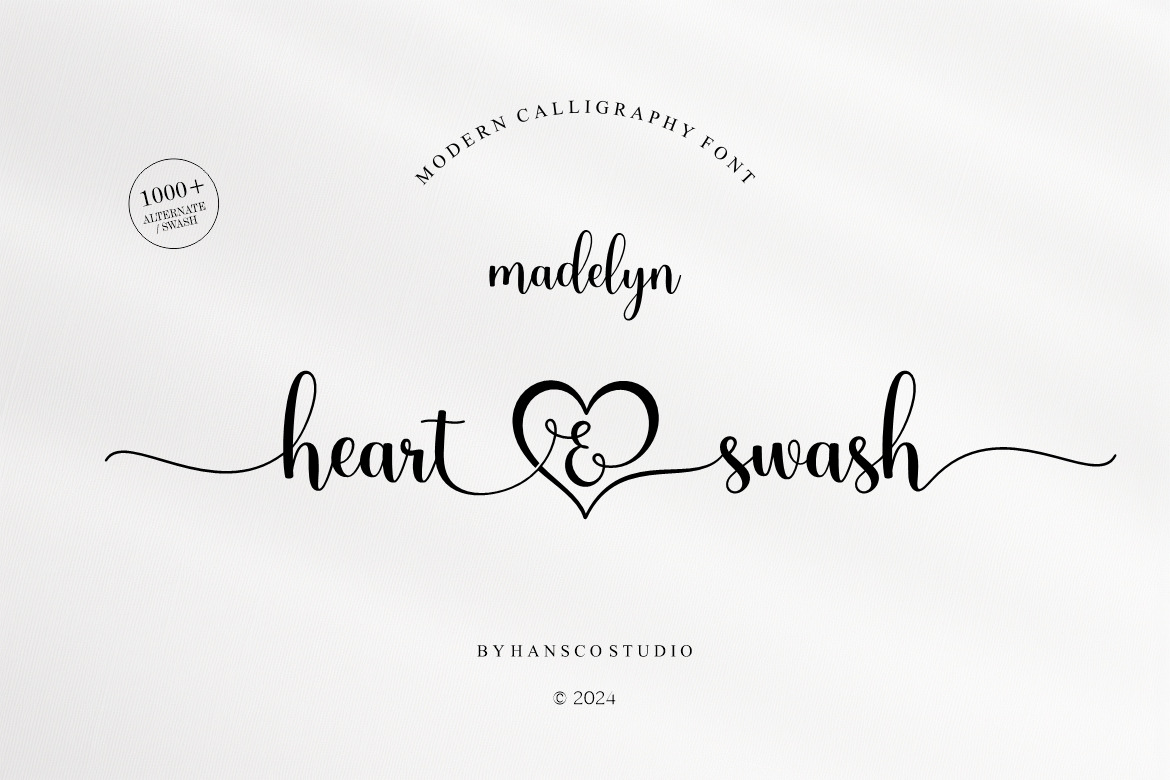
Madelyn Heart Font
Madelyn Heart is a clean and modern script font carefully created with a touch of elegance. Whether you’re looking for fonts for Instagram or calligraphy scripts for DIY projects, this font will turn any creative idea into a true piece of art!. This font is perfect also for creating print templates like posters, branding, quotes, blog titles, fashion, invitations, greeting cards, business cards, clothing, stationery or anything else. Comes with a full uppercase, lowercase, numbers, punctuation and with extensive language support, it’s going to be a very usable addition to your project. Masterfully designed to become a true favorite, this font has the potential to bring each of your creative ideas to the highest level. Use this Madelyn Heart font to add that special awesome elegant calligraphy touch to any design idea you can think of!.